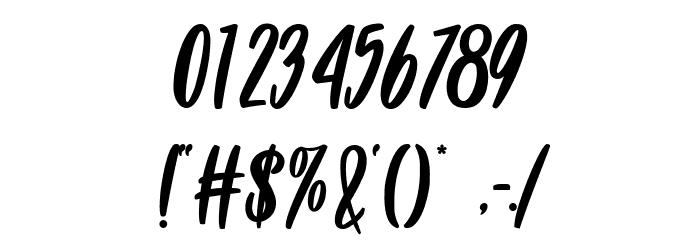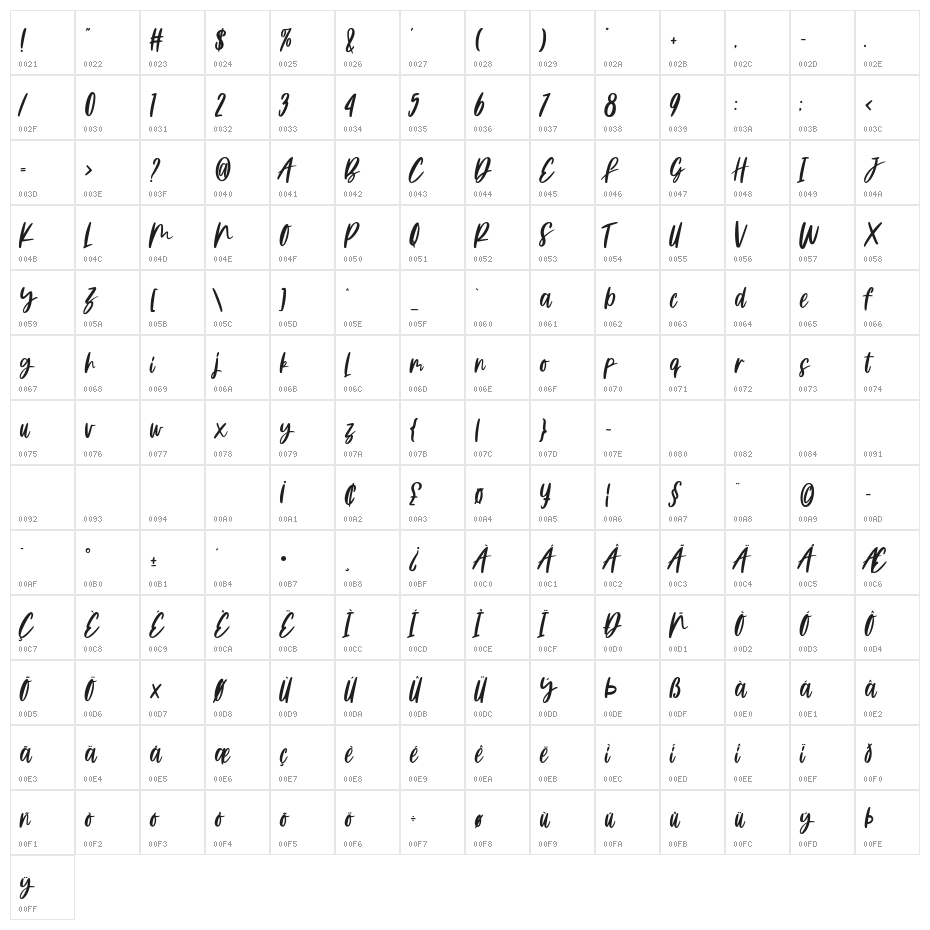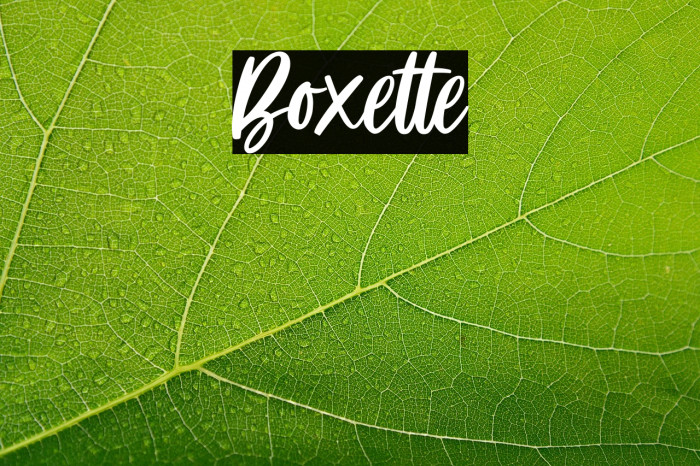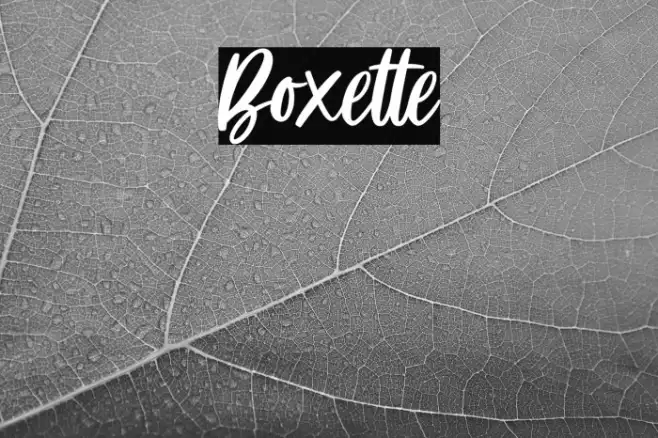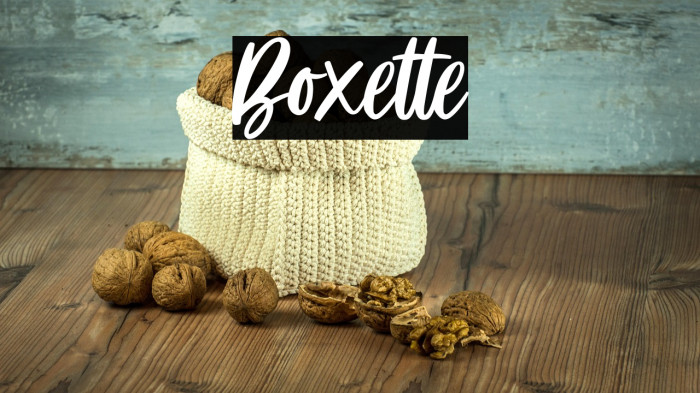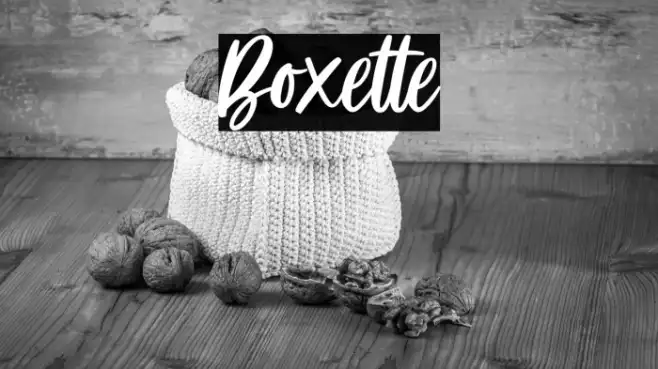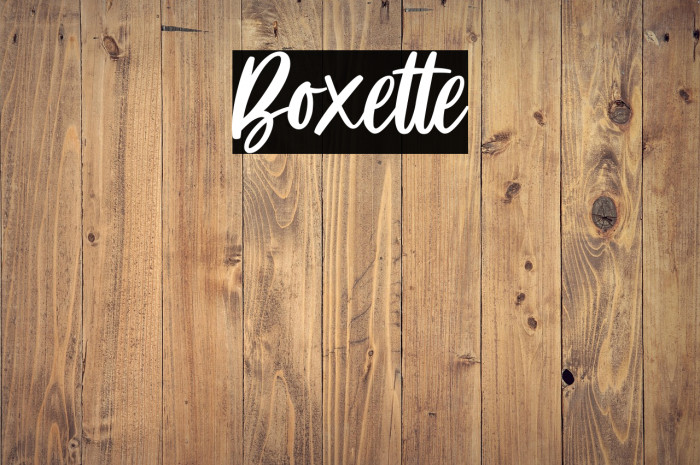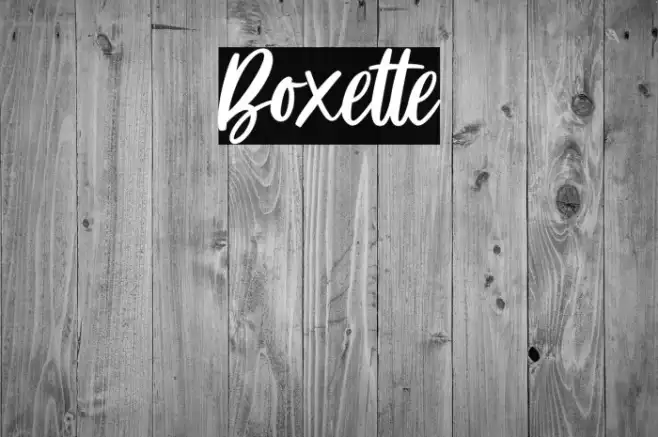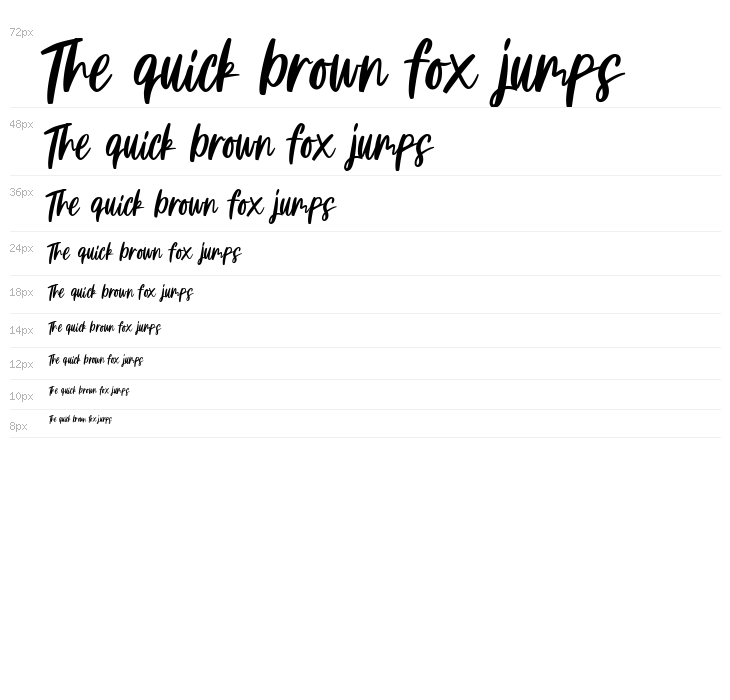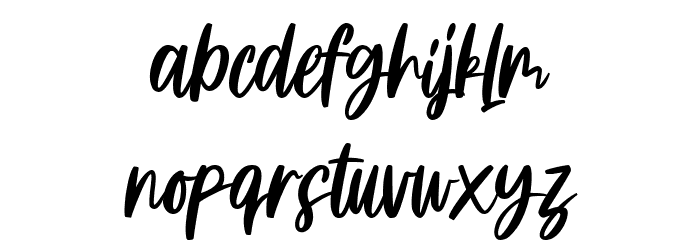
Boxette Font
Boxette Description
This font features a bold, expressive style with a handwritten appearance. The characters are fluid and dynamic, with a slight slant that adds a sense of motion and energy. The strokes vary in thickness, providing a medium contrast that enhances its lively and informal look. The uppercase letters are particularly striking, with exaggerated curves and loops, while the lowercase letters maintain a consistent flow. The numerals and special characters complement the overall style, making it versatile for various creative applications.